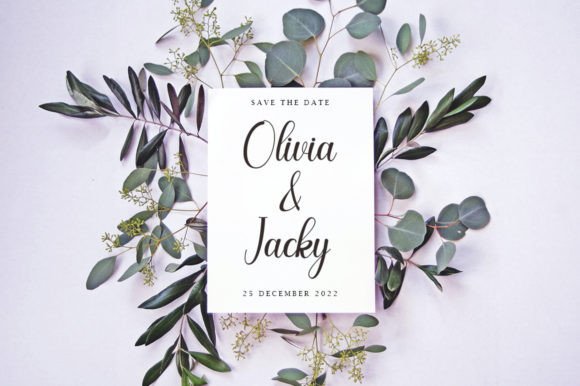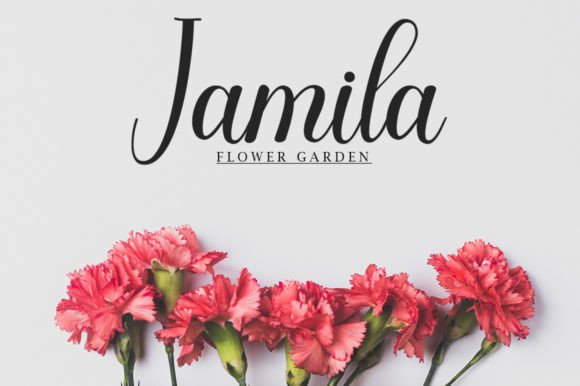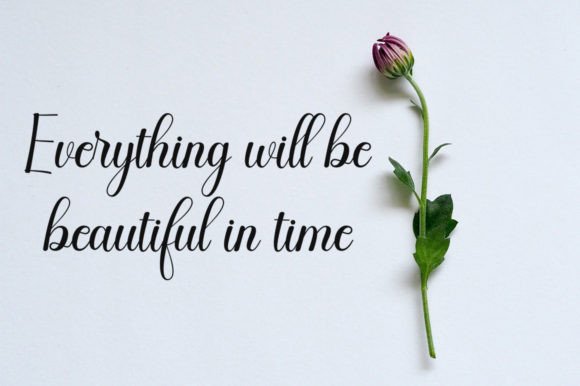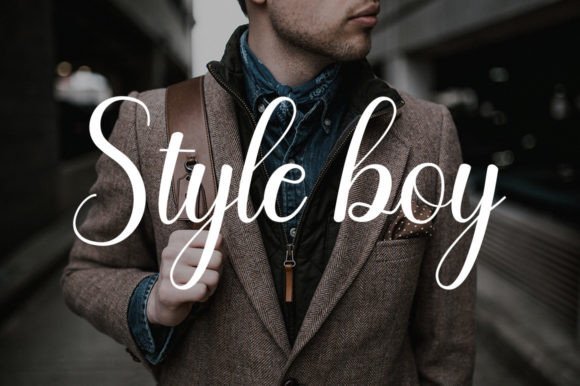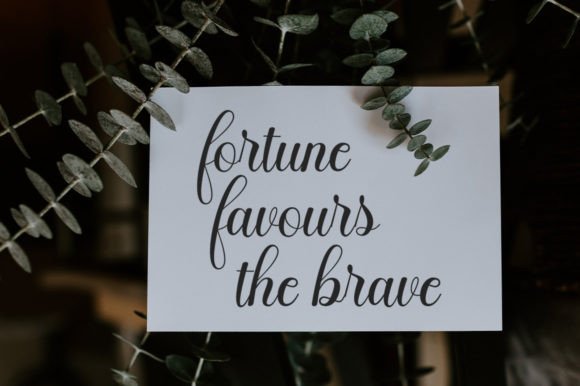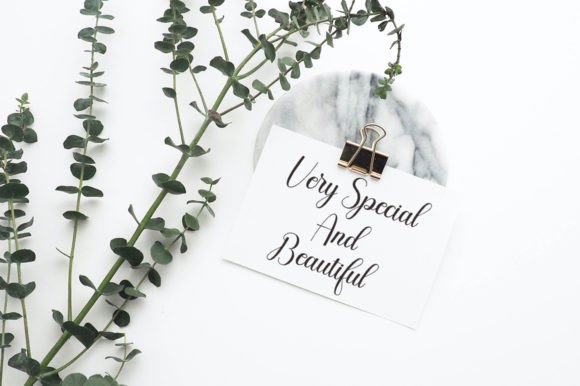
Introducing Feeling Good Font: The Perfect Addition to Your Romantic Designs
Are you looking for a font that can add a touch of romance and elegance to your designs? Look no further than Feeling Good Font, a dazzling and detailed handwritten font that is sure to impress. With its beautiful and flowing script, Feeling Good Font is the perfect addition to any love letter, wedding invitation, or design idea that you want to make special.
A Romantic and Beautiful Font
Feeling Good Font is a truly unique and eye-catching font that is sure to capture the hearts of designers and crafters alike. Its romantic and beautiful script is perfect for creating stunning wedding invitations, love letters, and other designs that require a touch of elegance and sophistication. Whether you’re a professional designer or a crafty DIY enthusiast, Feeling Good Font is sure to inspire your creativity and help you create something truly special.
Perfect for Love Letters and Wedding Invitations
Feeling Good Font is specifically designed to add a touch of romance and whimsy to your love letters and wedding invitations. Its flowing script and delicate details make it perfect for creating beautiful and memorable designs that will be treasured for years to come. Imagine being able to create stunning wedding invitations that set the tone for a beautiful and unforgettable wedding day, or writing love letters that will be cherished by your loved one forever.
Feeling Good Font is not just limited to love letters and wedding invitations. Its versatility and beauty make it perfect for a wide range of design ideas, from romantic posters and flyers to beautiful journals and planners. Whether you’re a designer, crafter, or DIY enthusiast, Feeling Good Font is sure to inspire your creativity and help you create something truly unique and special.
Key Features of Feeling Good Font
- Handwritten script: Feeling Good Font features a beautiful and flowing handwritten script that is sure to capture the hearts of designers and crafters alike.
- Romantic and elegant: This font is perfect for creating romantic and elegant designs that require a touch of sophistication and whimsy.
- Perfect for love letters and wedding invitations: Feeling Good Font is specifically designed to add a touch of romance and beauty to your love letters and wedding invitations.
- Versatile: This font is perfect for a wide range of design ideas, from posters and flyers to journals and planners.
Why Choose Feeling Good Font?
There are many fonts available that claim to be romantic and elegant, but Feeling Good Font stands out from the rest. Its unique and eye-catching script is sure to capture the hearts of designers and crafters alike, and its versatility makes it perfect for a wide range of design ideas. Whether you’re looking to create stunning wedding invitations or beautiful love letters, Feeling Good Font is the perfect choice.
Tips for Using Feeling Good Font
Here are a few tips for using Feeling Good Font in your designs:
- Use it sparingly: Feeling Good Font is a beautiful and elegant font, but it can be overwhelming if used too much. Use it sparingly to add a touch of romance and whimsy to your designs.
- Pair it with other fonts: Feeling Good Font pairs perfectly with other fonts, such as serif and sans-serif fonts. Experiment with different font combinations to create unique and interesting designs.
- Experiment with colors: Feeling Good Font looks beautiful in a variety of colors, from soft pastels to bold and bright hues. Experiment with different colors to find the perfect look for your design.
| Font Name | Feeling Good Font |
Feeling Good Font is a truly unique and eye-catching font that is sure to capture the hearts of designers and crafters alike. Its romantic and beautiful script is perfect for creating stunning love letters, wedding invitations, and other designs that require a touch of elegance and sophistication. Whether you’re a professional designer or a crafty DIY enthusiast, Feeling Good Font is sure to inspire your creativity and help you create something truly special.